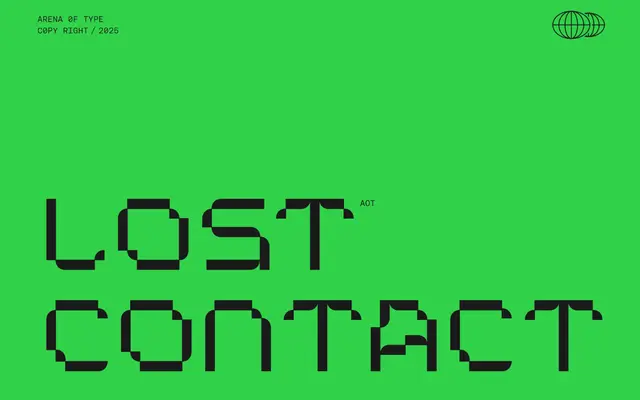
AOT Lost Contact
AOT Lost Contact specimen from Prioritype
A two-style pixel typeface offering a standard and rounded cut, aimed at gaming interfaces, tech branding and retro-inflected digital work.
AOT Lost Contact pairs a crisp square pixel style with a softened rounded variant, giving designers a choice between hard-edged and approachable treatments within the same visual language. The monospaced construction keeps letterforms orderly and consistent, which suits UI elements, game menus and arcade-styled typography. Available in OTF, TTF and WOFF, it covers the practical bases for both screen and print use.
A pixel-grid display typeface with monospaced proportions, designed for screen-forward contexts such as gaming interfaces and tech branding rather than continuous text setting.
AOT Lost Contact Round